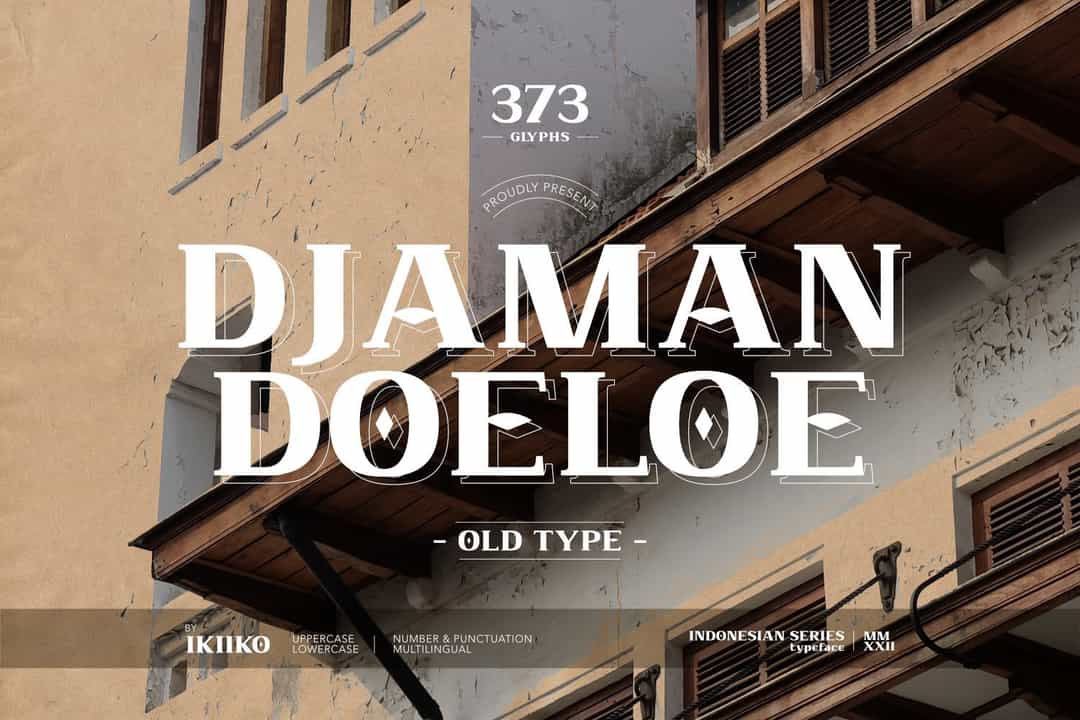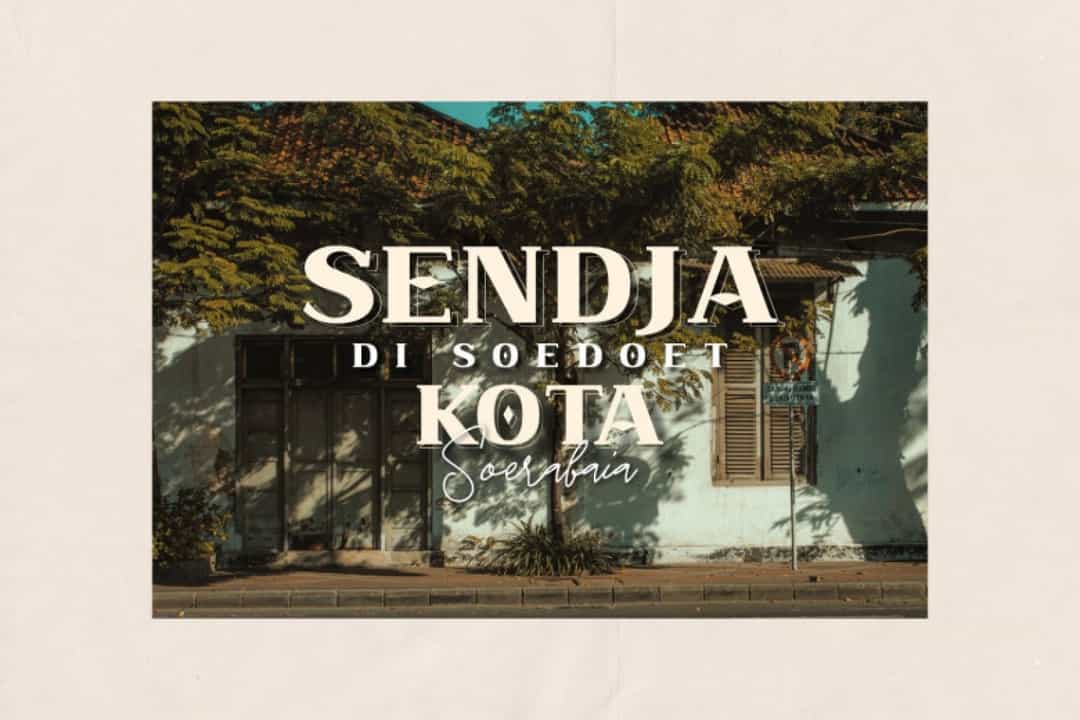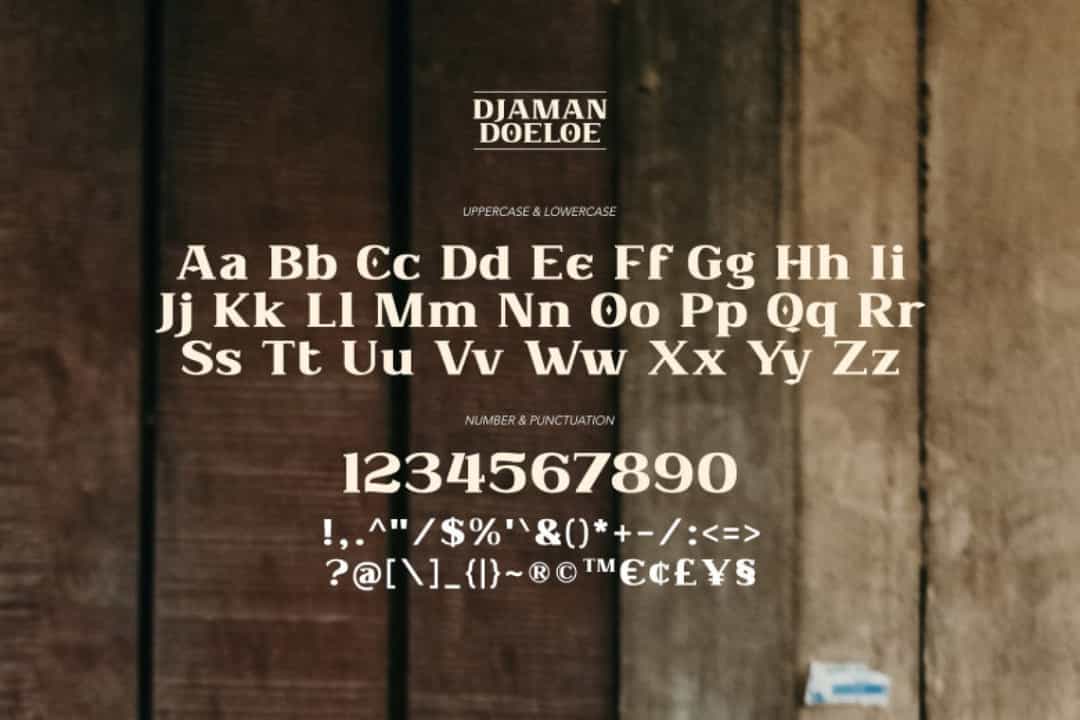
Djaman Doeloe Old Type was developed by ikiiko and features traditional serif and decorative elements with its own distinct look, inspired by Indonesian language “jadoel”, meaning antiquity.